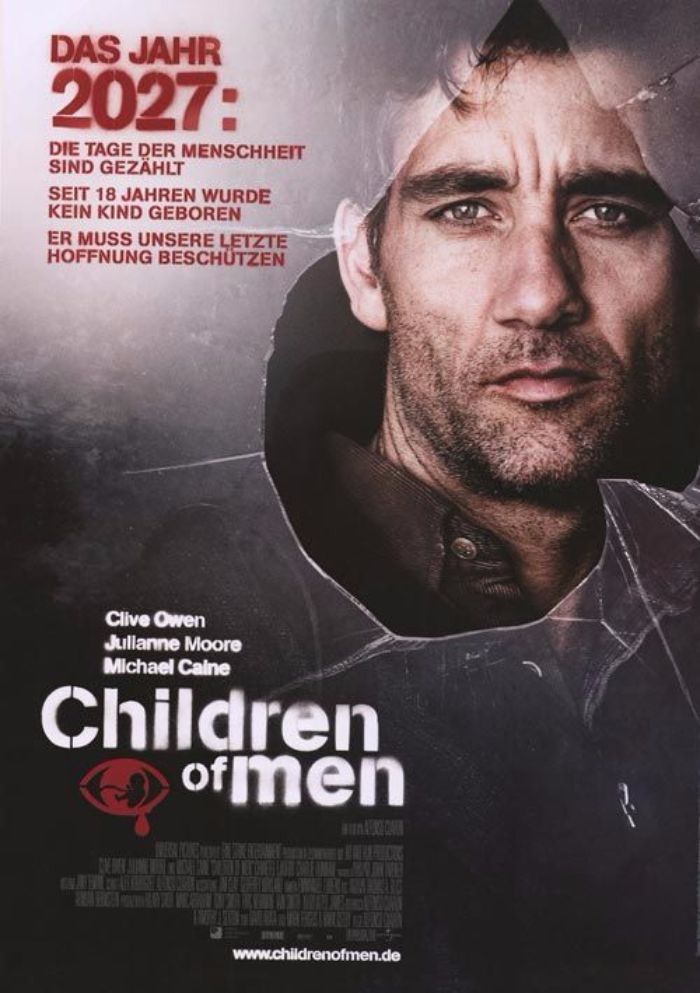
Fonts in UseChildren of Men is a 2006 dystopian film directed by Alfonso Cuarón, set in a world where human infertility has led to the collapse of society and follows a disillusioned civil servant who becomes the protector of the first pregnant woman in 18 years.
The poster for the movie displays the film's title in AG Book Stencil font, which was designed by German type designer Günter Gerhard Lange between 1969 and 1972. AG Book Stencil is a commercial font that can be purchased here.